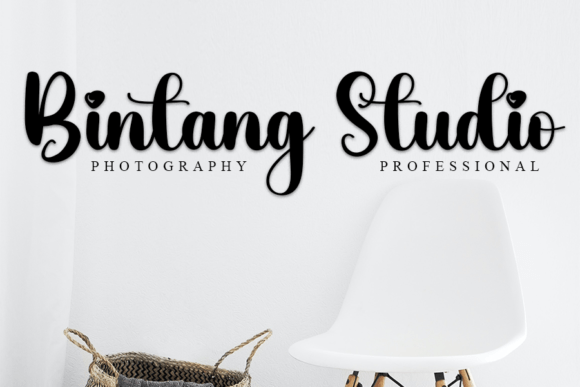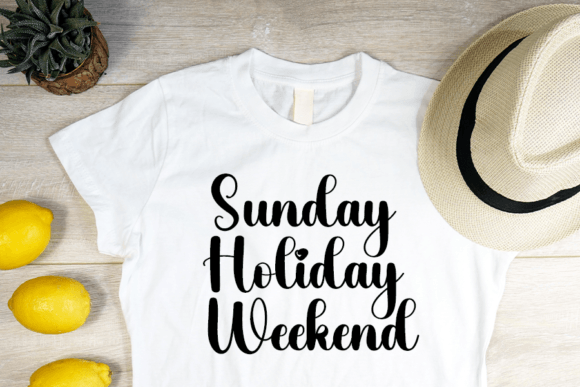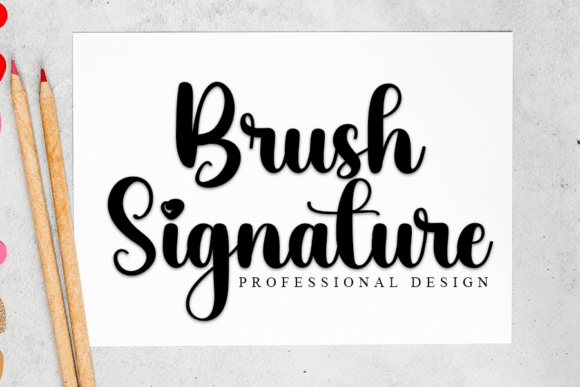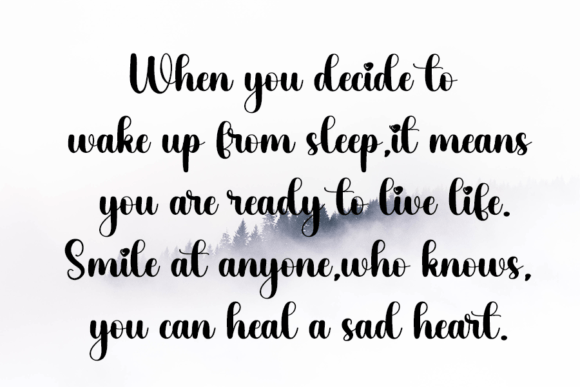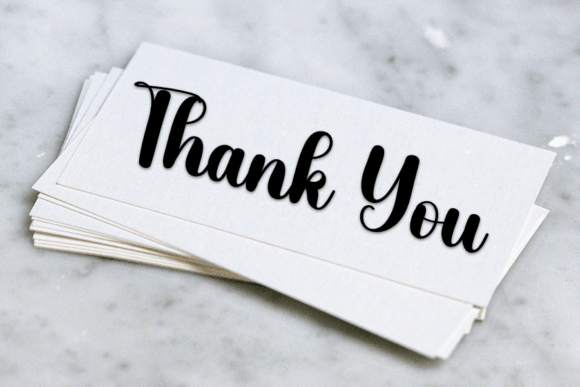
The Magic of Handwritten Fonts
It’s that time of the year when you’re rummaging through old trunks and dusty boxes, searching for that perfect, one-of-a-kind Christmas decoration or gift. As you dig deeper, you stumble upon a beautifully written letter from your childhood, penned in your grandmother’s elegant handwriting. The intricate strokes and delicate flourishes evoke a sense of nostalgia, making you wonder how you can capture that same magic in your design work.
That’s where the Diary Christmas Font comes in – a beautifully crafted, handwritten font designed to add a touch of warmth and uniqueness to your projects. With its delicate strokes and elegant flourishes, this font is perfect for writing letters, invitations, food labels, and even titles. Whether you’re a designer looking to add a personal touch or a crafter seeking to make your creations stand out, the Diary Christmas Font is a valuable asset to have in your toolkit.
Diary Christmas Font Key Features
- Unique Characteristics: This festive font features a handwritten, cursive style with a touch of whimsy, perfect for adding a personal and holiday-themed touch to your designs.
- Characters and Glyphs: The font includes a range of characters, including uppercase and lowercase letters, numbers, and special characters, making it versatile for use in various contexts.
- Font Style: The Diary Christmas Font is a script font, ideal for use in titles, headings, and short paragraphs where a more elegant and decorative feel is desired.
Diary Christmas Font Review
First off, I love the whimsical and playful vibe of Diary Christmas Font ✨. The combination of bold lines, ornaments, and festive elements creates a unique and eye-catching design that’s perfect for Christmas-themed projects. The font is also highly customizable, allowing you to adjust the size, color, and spacing to suit your needs.
One of the standout features of Diary Christmas Font is its wide range of glyphs, including both uppercase and lowercase letters, numbers, and punctuation marks ✨. This makes it easy to use the font for a variety of projects, from posters and cards to social media graphics and web designs.
While Diary Christmas Font is a great choice for Christmas-themed projects, it may not be the best option for everyday use ⚠️. The font is quite ornate and may be too busy for some designs. Additionally, the font’s bold lines and ornaments can make it difficult to read in certain situations, such as at small sizes or in complex layouts.
In conclusion, Diary Christmas Font is a great choice for designers looking to add a touch of festive flair to their projects ✨. While it may have some limitations, the font’s unique design and high level of customization make it a valuable asset for any designer’s toolkit.
- Whimsical and playful design
- Wide range of glyphs
- Perfect for Christmas-themed projects
For a festive touch, use the font in a holiday-themed design, such as a Christmas card or a winter wonderland invitation.
For a unique look, use the font in a custom illustration or graphic design.
For a holiday message, use the font in a greeting card or a festive email signature.
To get the most out of the Diary Christmas Font, use it in a design that features a mix of bold and playful elements, such as a Christmas tree or a snowman.
- Holiday cards and invitations